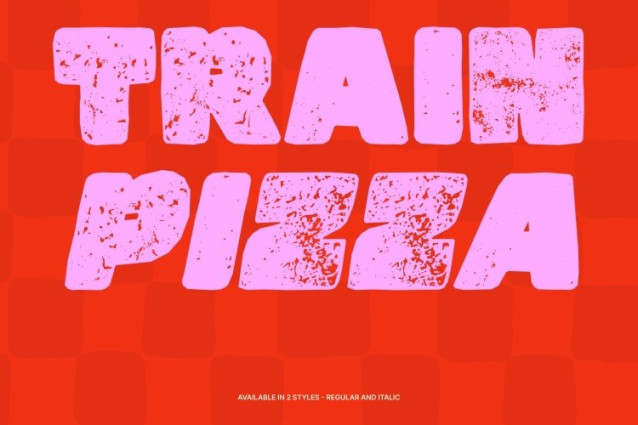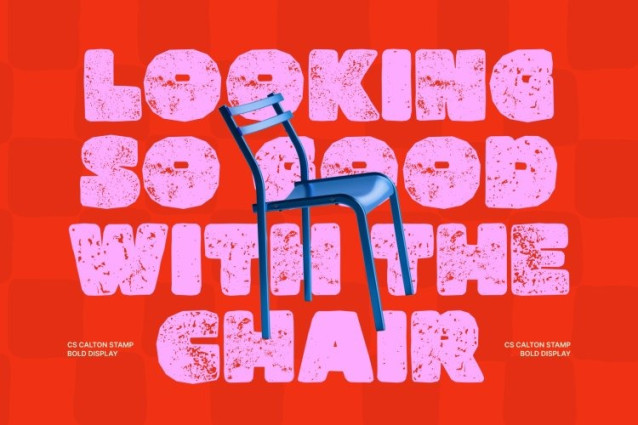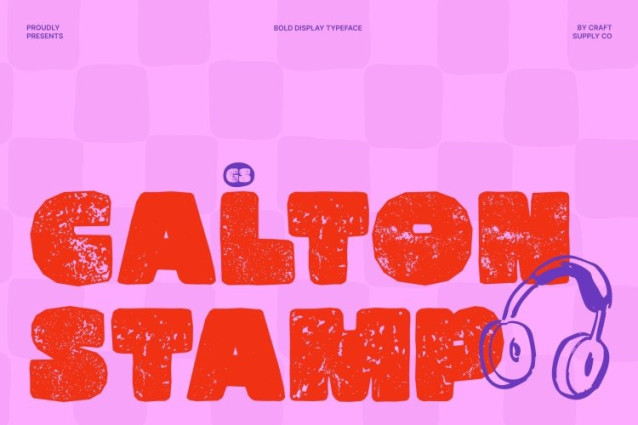
CS Calton Stamp Font
CS Calton Stamp Font is a bold display sans serif font designed to command attention, enhanced with a distinctive stamp effect that adds vintage character and artistic texture. Its strong strokes and confident letterforms maintain a modern, impactful presence, while subtle distressed details and ink-like imperfections give the typeface a handcrafted, authentic feel.
Bold Forms with Expressive Texture
The powerful structure of this font is balanced by the organic charm of the stamp treatment. Slightly rough edges, uneven ink textures, and worn details bring depth and personality to the bold shapes. This combination creates a striking visual contrast between modern geometric clarity and vintage-inspired artistry.
Strong Identity for Branding and Visual Impact
This is ideal for projects that require bold visibility and memorable character. From branding and packaging to advertising campaigns and promotional materials, the font delivers a confident presence while the textured stamp effect adds uniqueness and warmth to every design.
Perfect for Posters, Headlines, and Statement Design
With its commanding weight and textured personality, this font excels in display settings such as posters, editorial headlines, signage, and graphic compositions. The fusion of bold modern design and vintage stamp aesthetics ensures your typography stands out with strength, energy, and distinctive visual appeal.